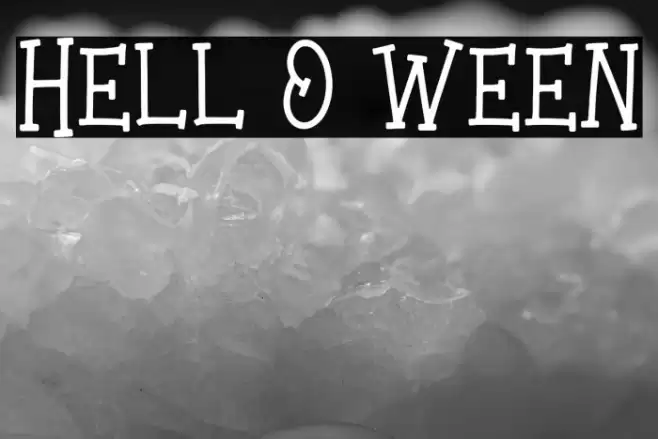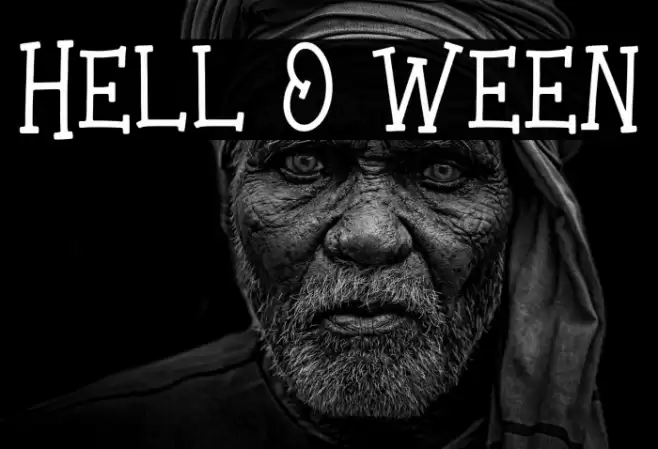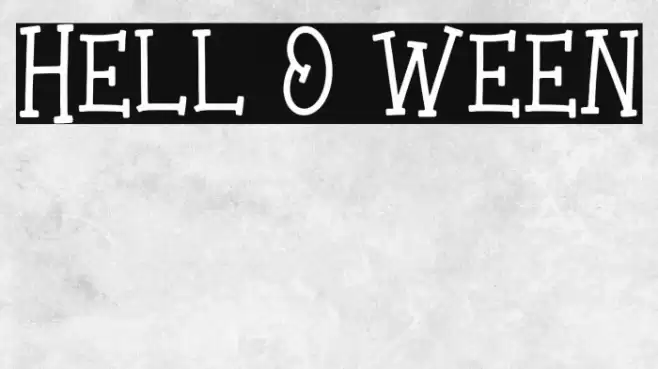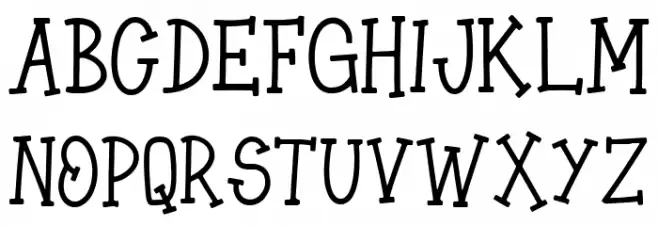
Hell o ween Font
Hell o ween Description
This font features a playful and whimsical design, characterized by its uneven, hand-drawn appearance. The letters have a slightly irregular baseline, giving them a quirky and dynamic feel. The strokes are consistent in width, providing a uniform look despite the playful nature. The font includes both uppercase and lowercase letters, as well as numbers and a selection of special characters. Its unique style makes it suitable for creative and informal projects, adding a touch of fun and personality to any design.
A playful, hand-drawn font with a whimsical and quirky style from Regular fonts.
- Proposed Projects: Ideal for Halloween-themed designs, children's books, party invitations, and playful branding.
- Use Case: Headlines, Logos, Invitations